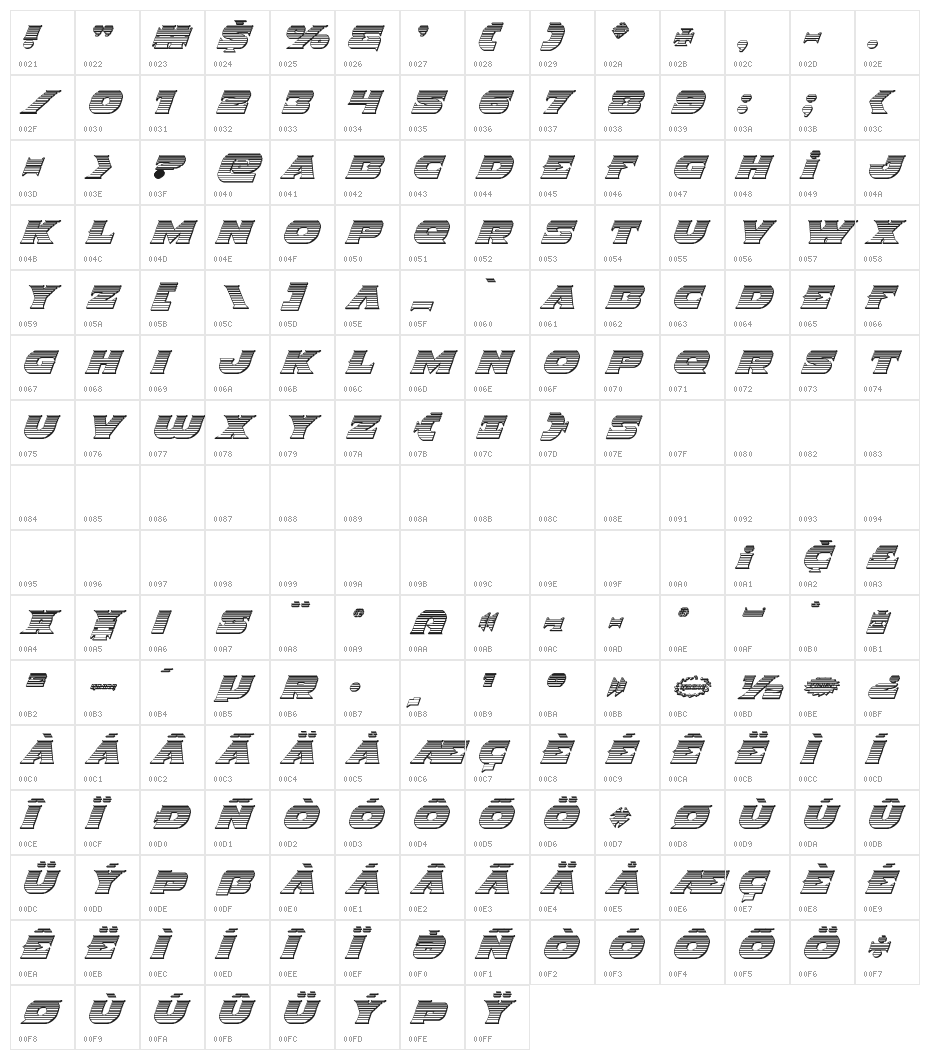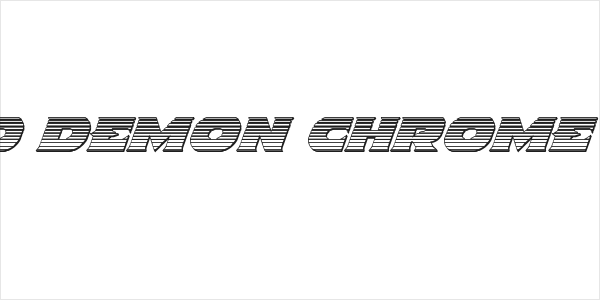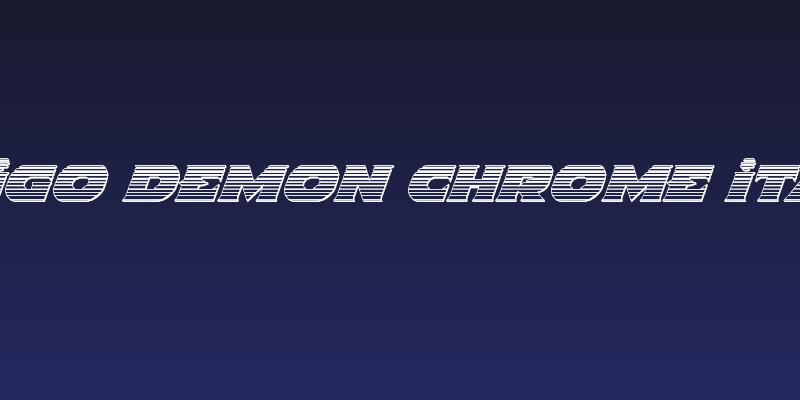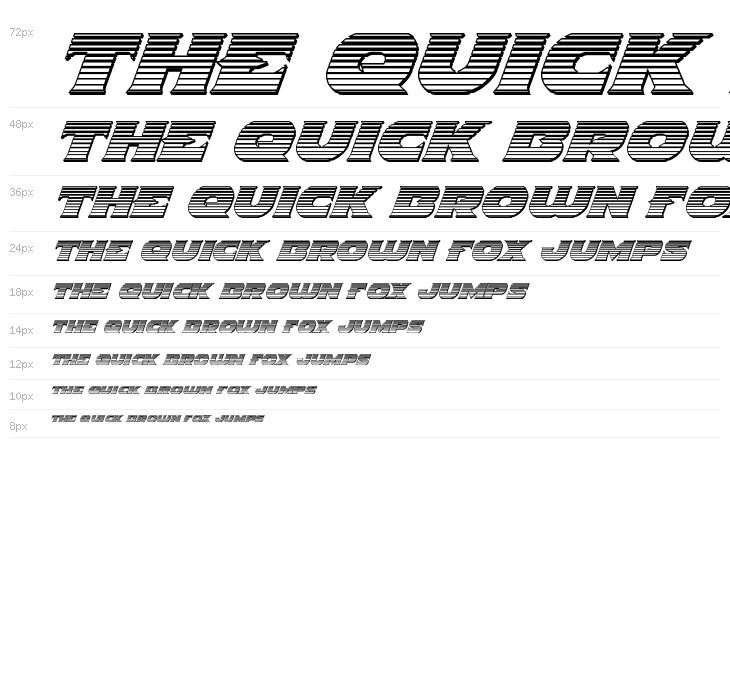
Indigo Demon Chrome Italic Font
Indigo Demon Chrome Italic Description
This font features a bold, futuristic design with a distinctive striped pattern running through each character. The letters are italicized, giving a sense of motion and speed. The geometric shapes and sharp angles contribute to a modern, edgy appearance. The uppercase and lowercase letters maintain a consistent style, with the numerals and special characters following suit. The font's unique aesthetic makes it stand out, ideal for projects that require a dynamic and eye-catching look.
| Proposed Projects | Ideal for sci-fi themed posters, video game titles, or branding for tech companies. |